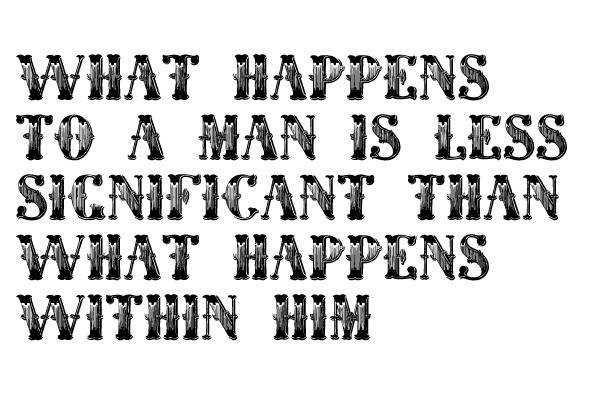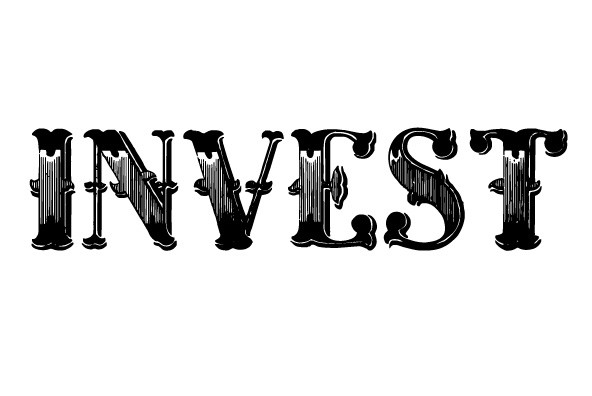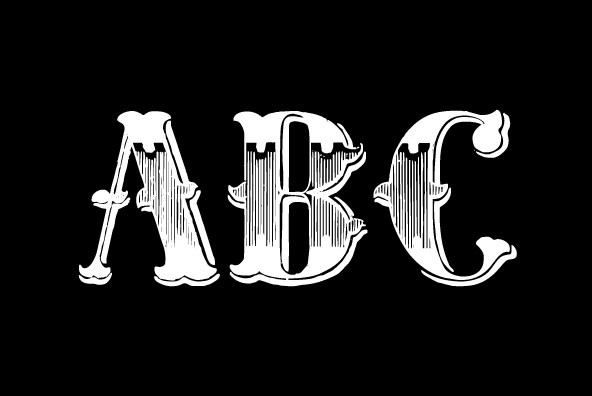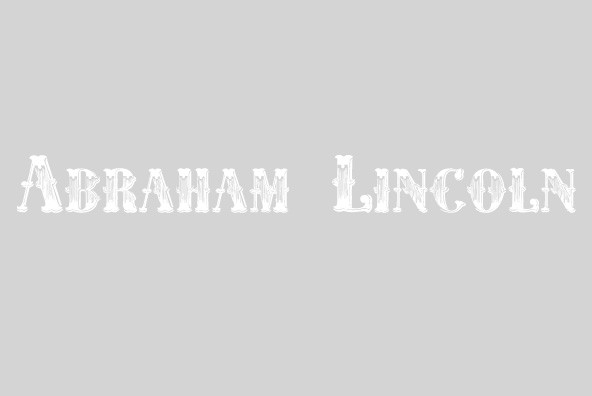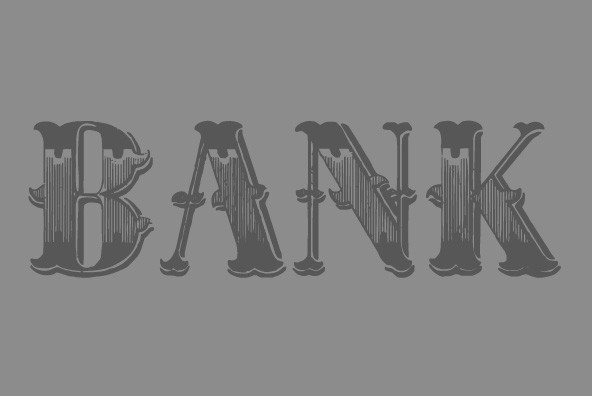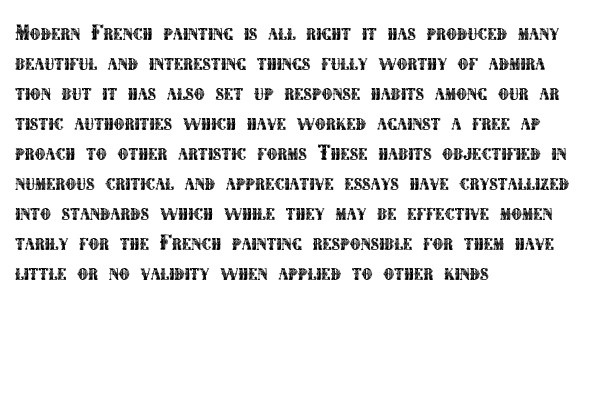
Robur the Conqueror
A classic font design remastered by the type foundry Intellecta Design. Distressed and antique, use this font in display purposes for a stylized type design.